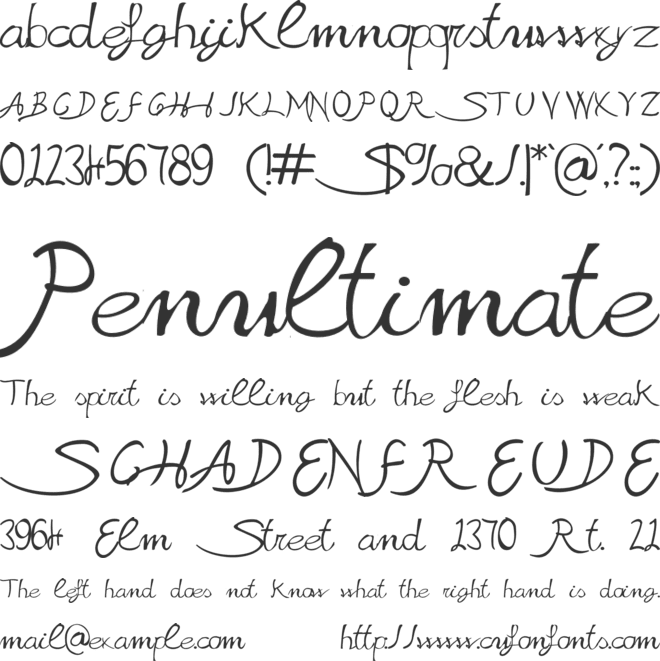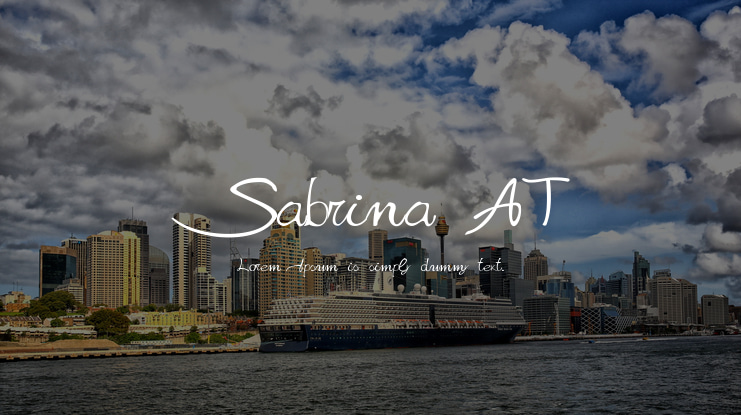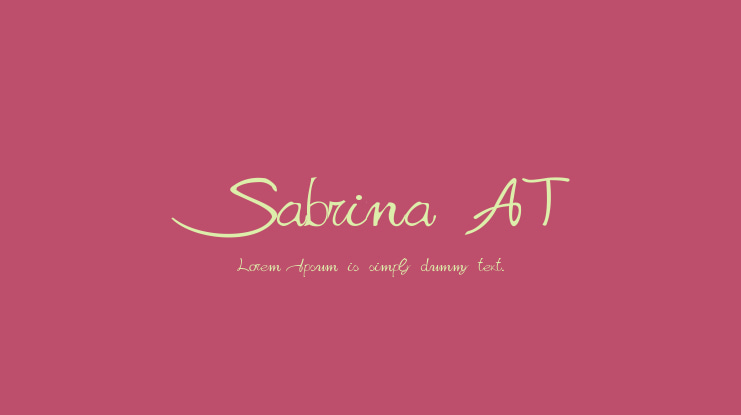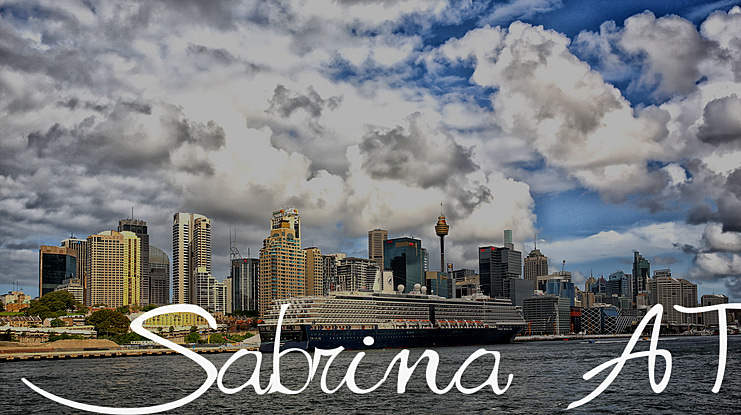
Sabrina AT Font
P. A. Vannucci
SABRINA font: directly from the Best movie by Billy Wilder, with AUDREY HEPBURN and HUMPHREY BOGART,
the original font for all lovers.